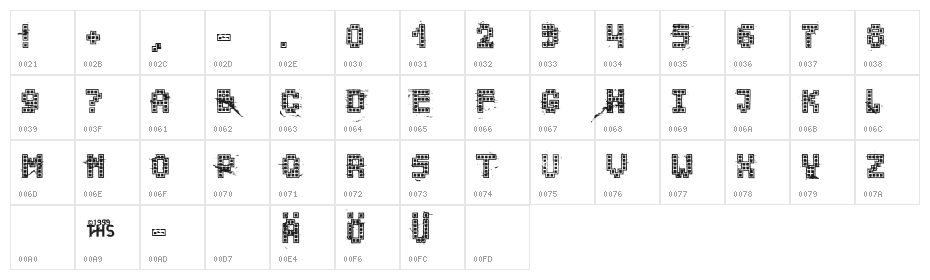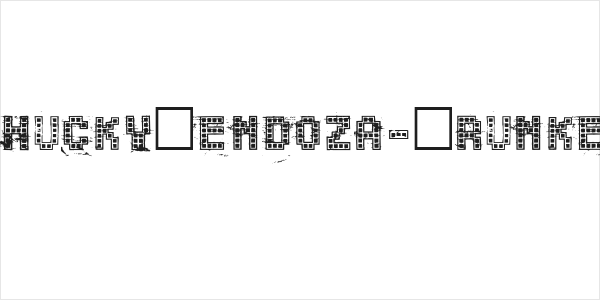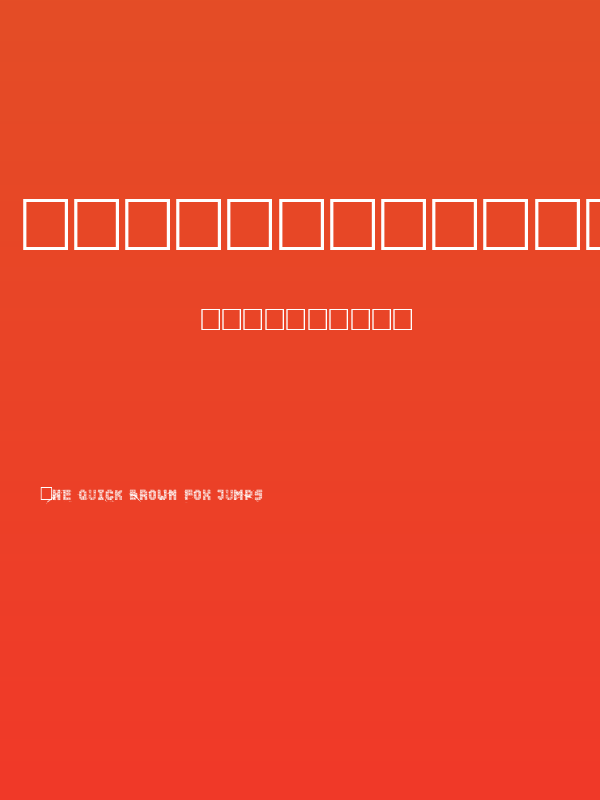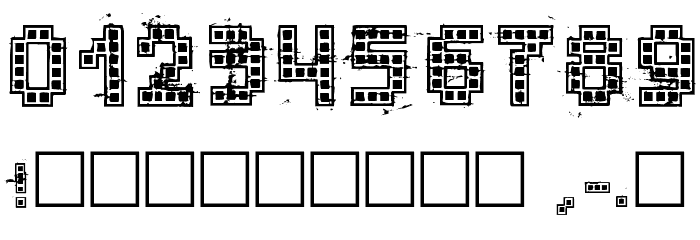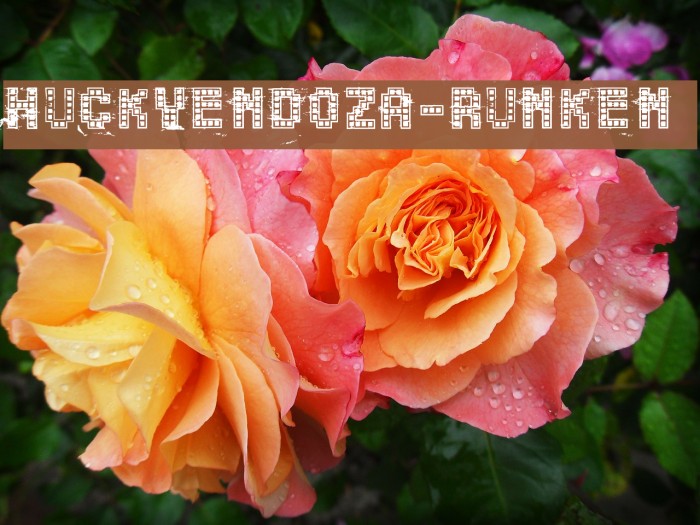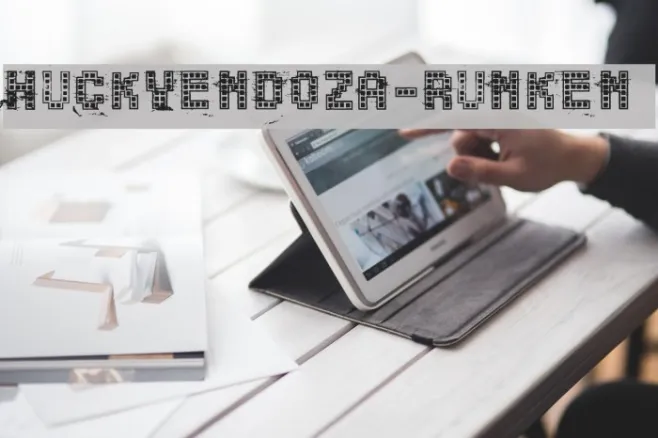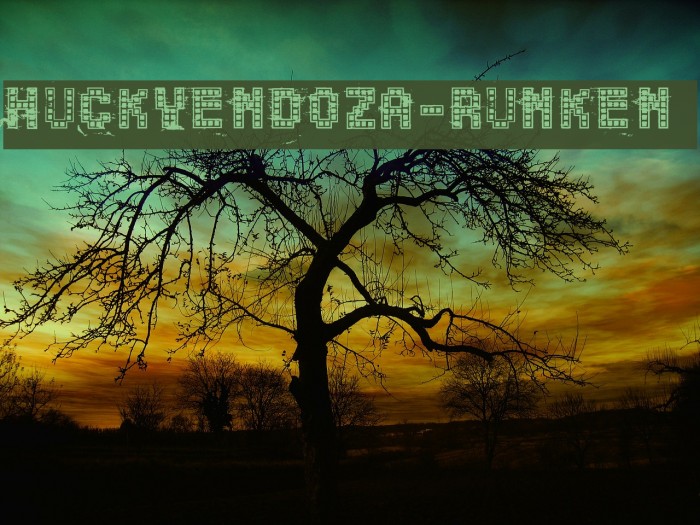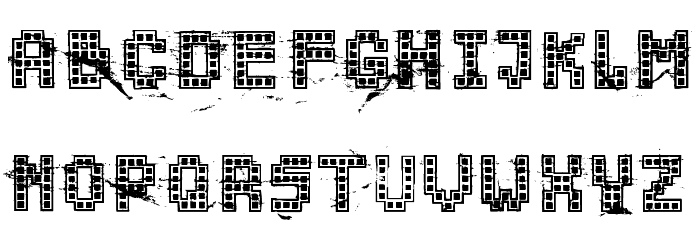
ChuckyMendoza-Drunken Font
✎ Pixel
| Style général | Grunge, Industrial |
| Cas d'utilisation | Headlines, Posters, Logos |
| Projets proposés | Ideal for music album covers, urban-themed posters, video game graphics, or any project needing a gritty, industrial look. |